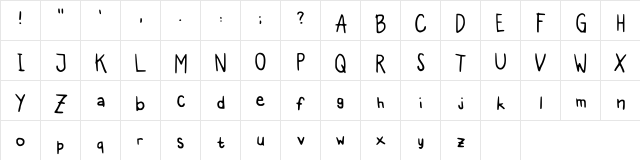
Kids Ideas Regular
Design Context for Kids Ideas Typeface
Kids Ideas has an approachable, lighthearted character — its loose, expressive forms are well-suited to children's content, casual branding, and fun-first design.
Font Pairing: Pairs well with a rounded or humanist sans for body copy, maintaining the friendly tone without relying on Kids Ideas to carry extended reading.
Pro Tip: Use Kids Ideas at larger display sizes where its expressive character can land. Pair with a clean, simple sans for body copy to maintain readability.